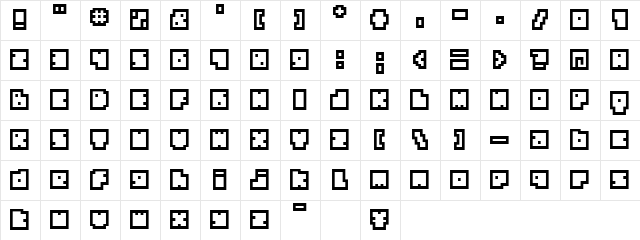
BM biscuit A9
Design Context for BM biscuit Typeface
BM biscuit takes a measured approach to typography — its balanced proportions and neutral character make it a reliable workhorse for both digital and print work.